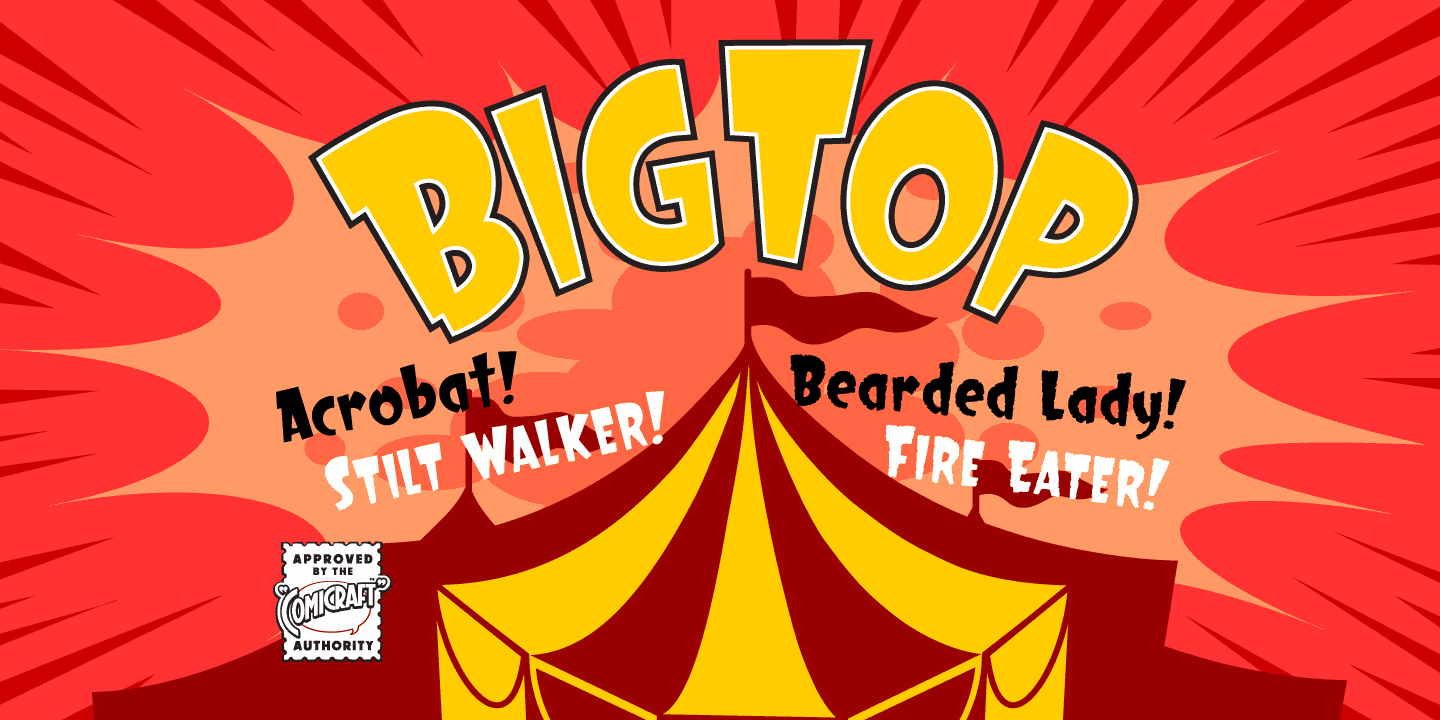
Big Top Font is perfect for circus performance branding, carnival event graphics, vintage entertainment posters, theatrical show promotions, amusement park signage, spectacular performance marketing, and classic Americana designs.
What makes Big Top Font exciting is its circus grandeur and vintage entertainment magic, featuring bold letterforms that capture the essence of big top spectacle while delivering nostalgic visual impact and carnival authenticity.
The Big Top Font family includes Light, Regular, Medium, Bold, and Heavy weights, plus vintage variants and circus alternates that enhance the font's spectacular character and entertainment possibilities.
Big Top Font Free Download embodies the magnificent spectacle of circus entertainment and the nostalgic charm of vintage carnival culture through dramatic typography design. This captivating typeface captures the grand excitement of big top performances and the magical atmosphere of traditional American circuses, creating a spectacular visual language that speaks to entertainment enthusiasts and nostalgia lovers who value classic entertainment, vintage spectacle, and the timeless appeal of circus magic. The font's dramatic character and circus appearance make it perfect for entertainment venues, vintage brands, and theatrical organizations that want to communicate grandeur, nostalgia, and the captivating appeal of classic American entertainment.
Entertainment venues and vintage event organizers consistently select Big Top Font for projects that require authentic circus credibility and spectacular visual impact. The typeface's dramatic construction and vintage personality make it exceptionally effective for amusement parks, theatrical companies, and entertainment venues where circus spectacle and nostalgic charm are paramount. Each character has been designed with theatrical precision to ensure maximum impact across all entertainment applications and vintage environments.
The entertainment advantages of Big Top Font extend beyond its circus appeal to include practical functionality for diverse vintage applications. The font maintains excellent readability in theatrical lighting while delivering the distinctive character that creates memorable entertainment experiences and connects with audiences seeking authentic vintage spectacle. Its comprehensive character set includes circus symbols and theatrical elements that make it particularly suitable for entertainment documentation and vintage communication.
Amusement parks, theatrical companies, and vintage entertainment venues frequently choose Big Top Font because of its ability to instantly convey circus authenticity and vintage sophistication. The typeface's spectacular aesthetic helps establish credibility in competitive entertainment markets while appealing to audiences who value classic entertainment, vintage charm, and the magical experiences that come from authentic circus spectacle and traditional American carnival culture.